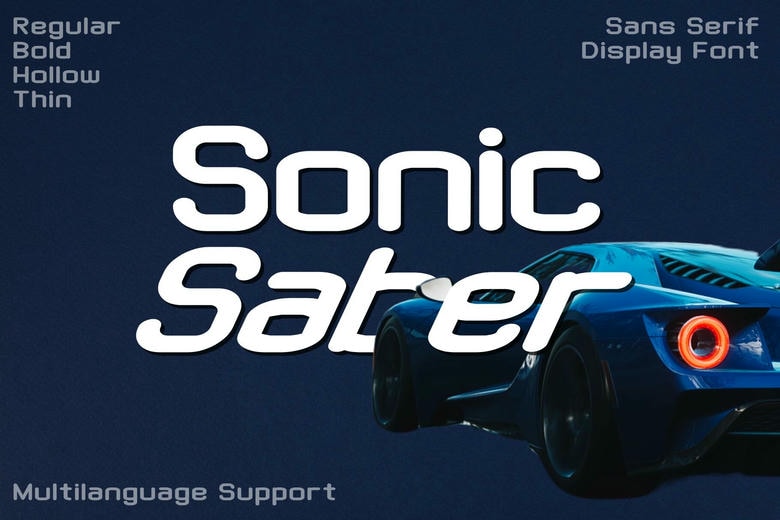
Sonic Saber Font
“Sonic Saber”, your new go-to sans serif font family. Omitting class and professionalism, Sonic Saber provides clean and crisp lines to achieve a smooth and well-organized look. Its minimalistic beauty is ideal to both high-powered corporate branding and personal convincing designs. This all-purpose font will beautifully simplify your creative work. Sonic Saber, where simplicity is combined with sophistication.
Sonic Saber Sans Serif Font Family